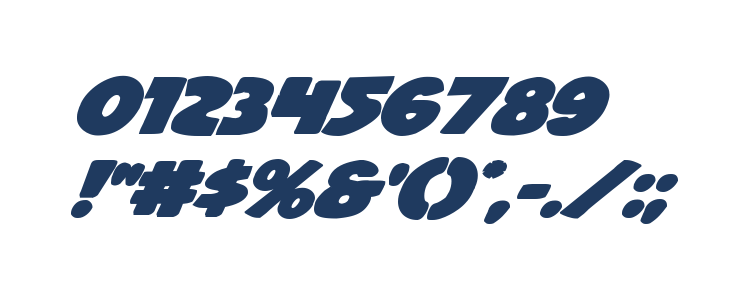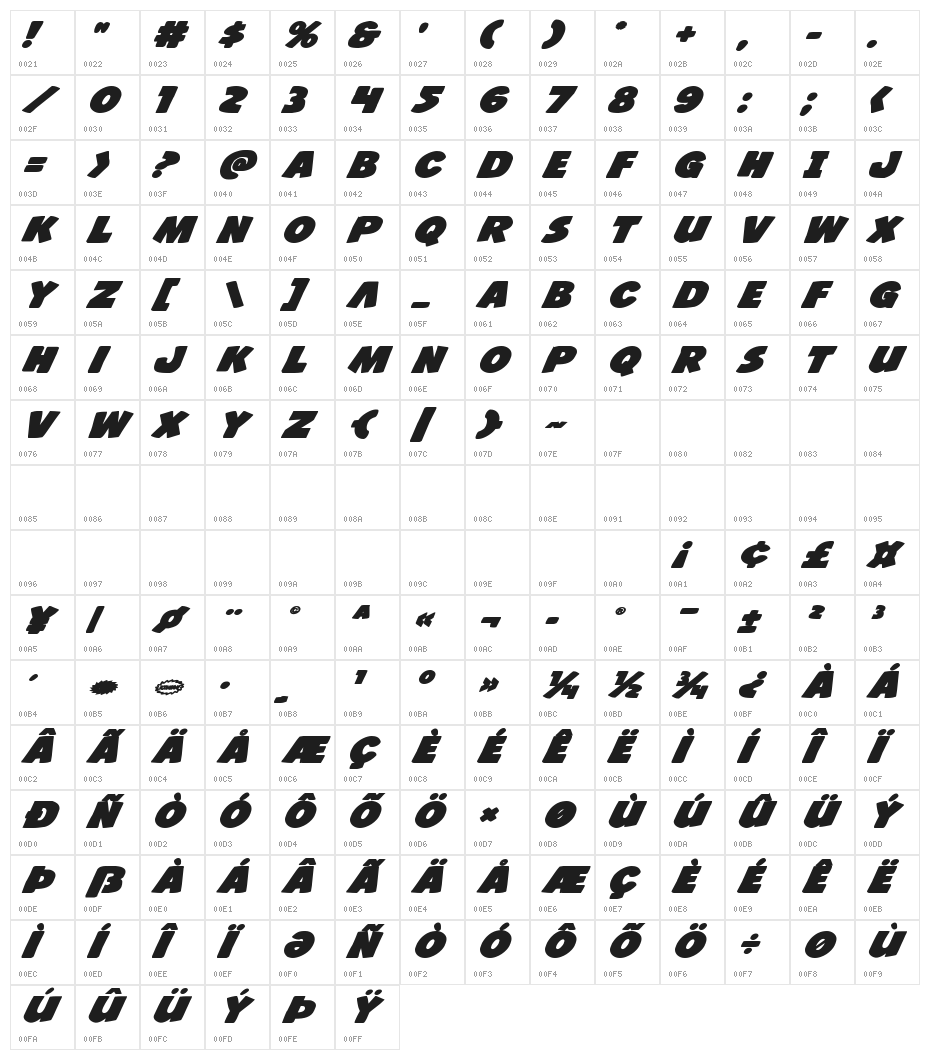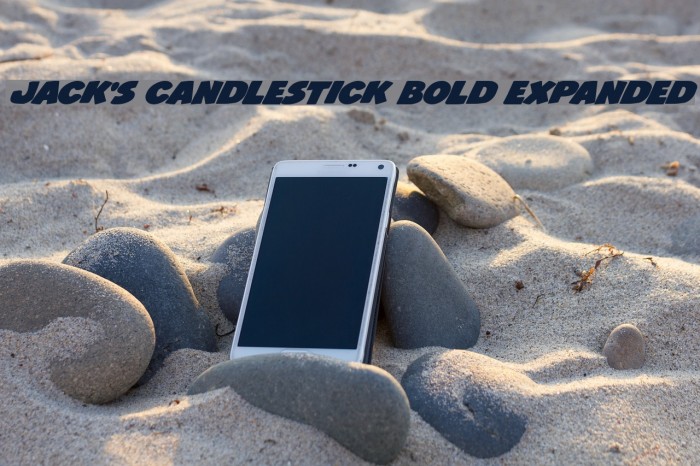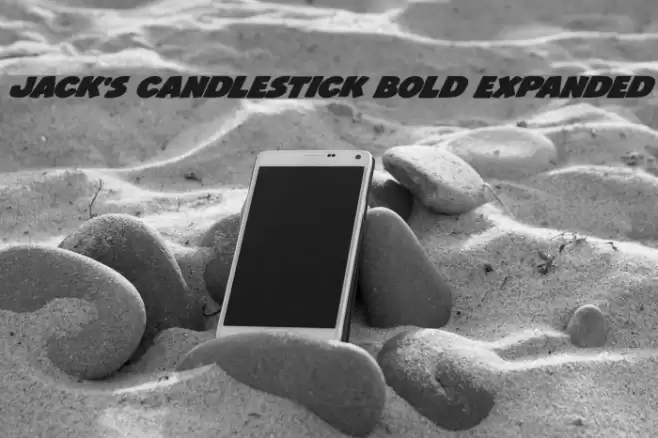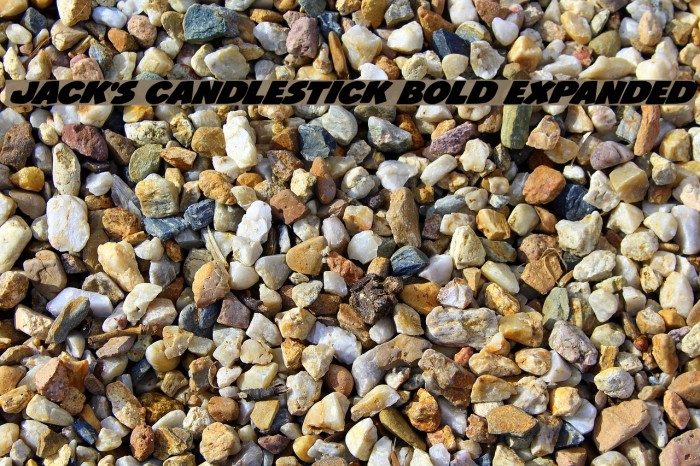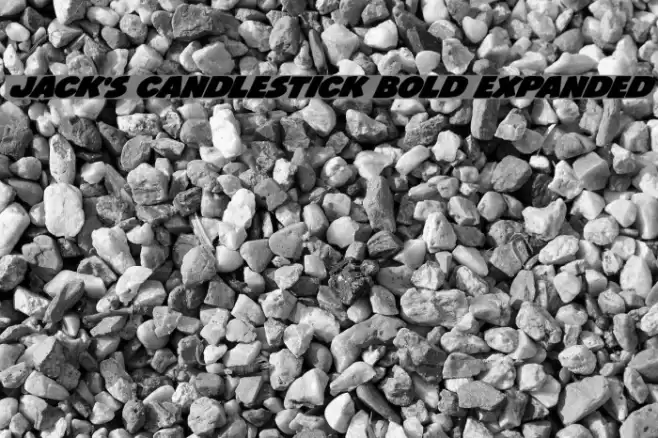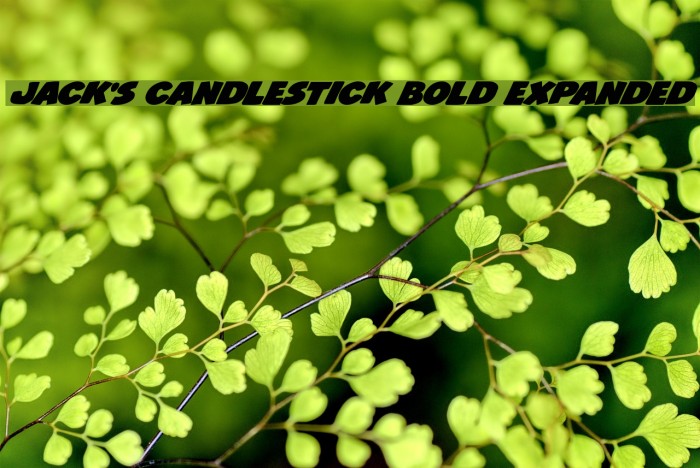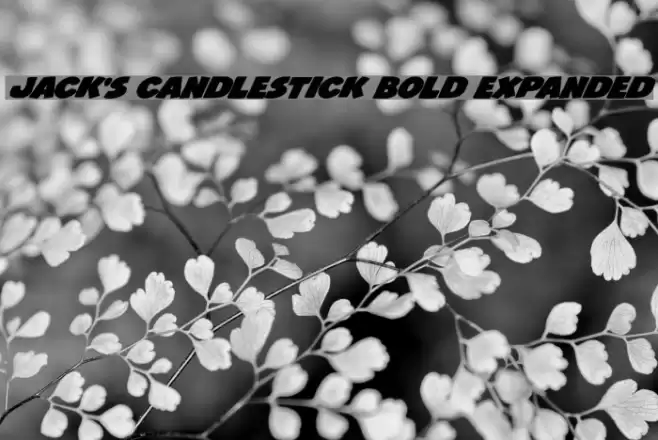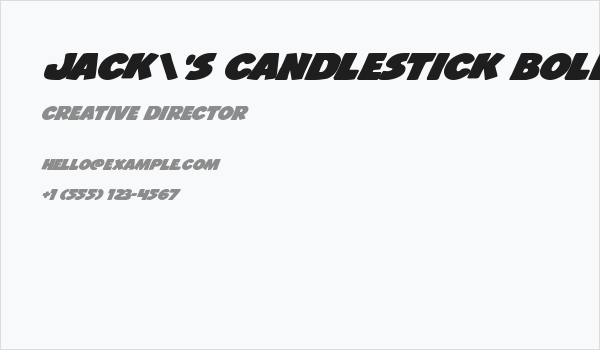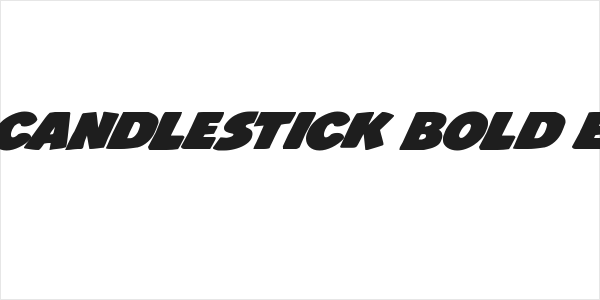
Jack's Candlestick Bold Expanded Font
Jack's Candlestick Bold Expanded Description
This font features a bold and dynamic style with a strong presence. The characters are heavily weighted and expanded, giving them a robust and impactful appearance. The strokes are thick and consistent, creating a sense of power and stability. The letters have a slightly italicized slant, adding a touch of movement and energy. The overall look is modern and eye-catching, making it suitable for attention-grabbing designs. The spacing between characters is tight, enhancing the compact and cohesive feel of the text.
| Proposed Projects | Ideal for headlines, posters, branding, and any design that requires a strong visual impact. |